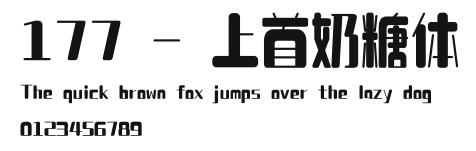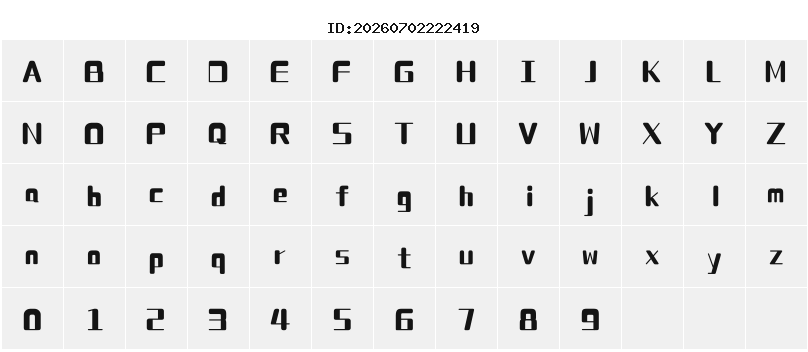
177 - 上首奶糖体 Preview
• Font Name: 177 - 上首奶糖体
• Font ID: 177 - SS Nai Tang Ti:Version 6.00
• Full Font Name: 177 - 上首奶糖体
• Version: Version 6.00 June 13, 2023
• PostScript Name: 177-SSNaiTangTi
• Character Count: 7569
• Manufacturer: 上首造字
About 177 - 上首奶糖体.ttf
177 - 上首奶糖体.ttf is a modern, elegant sans-serif font designed for ultimate readability and visual harmony. Perfect for branding, headlines, web design, and print materials.